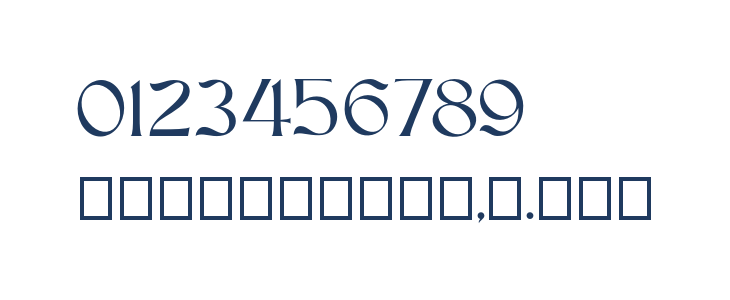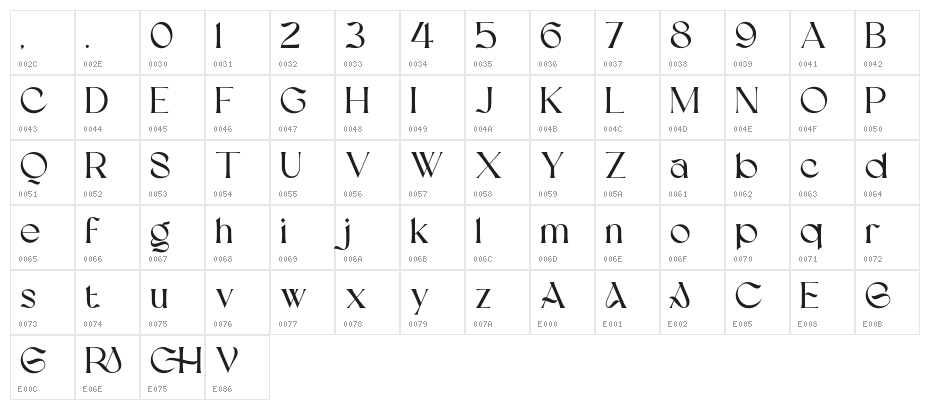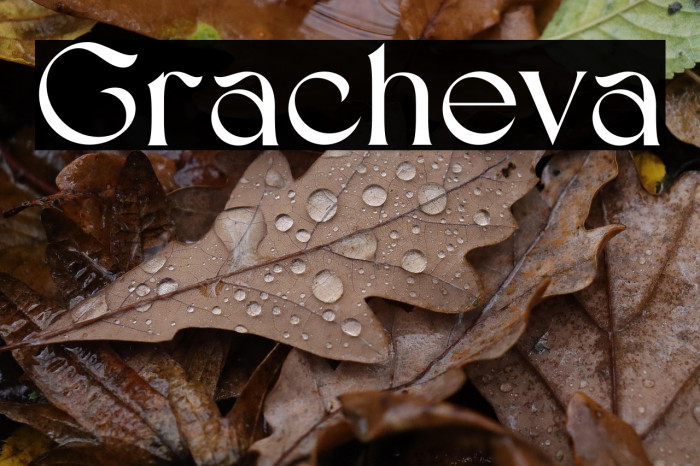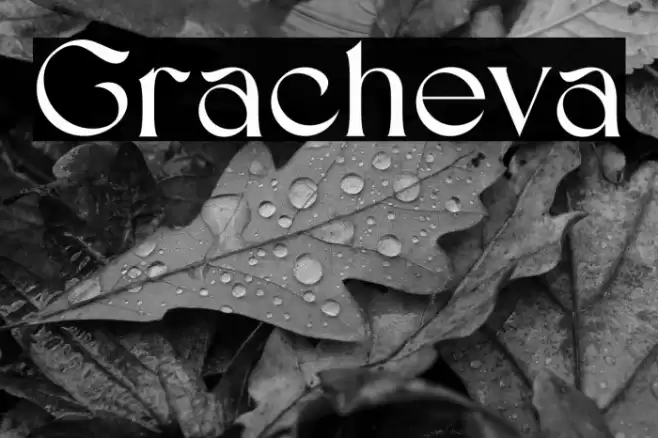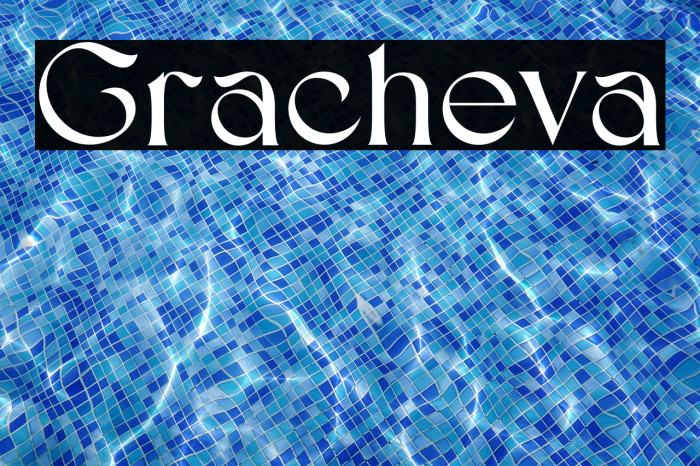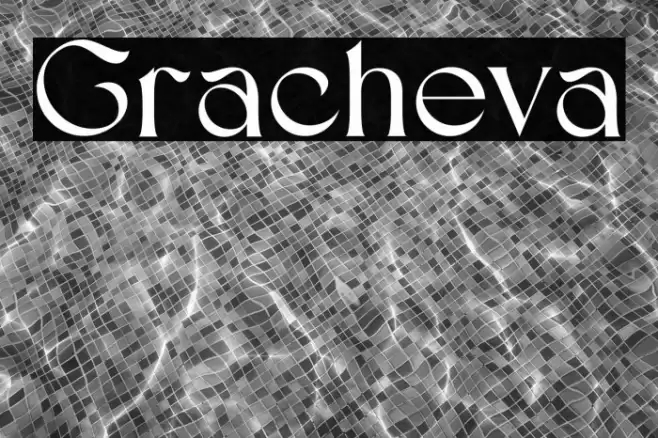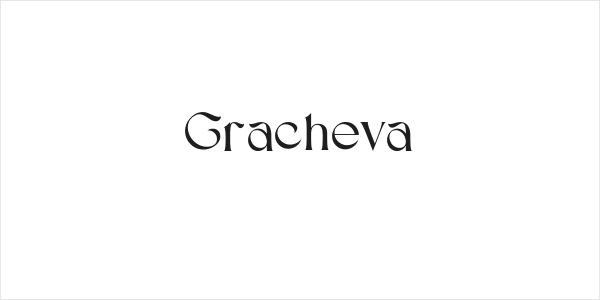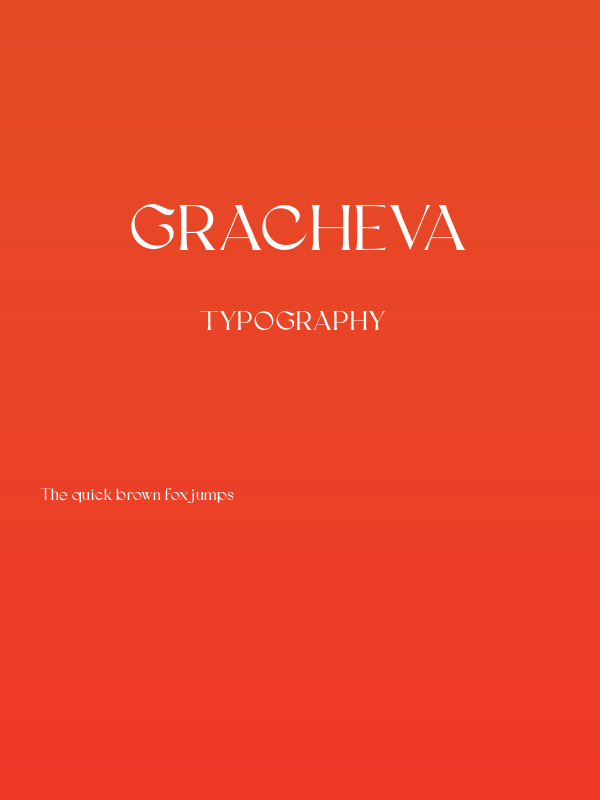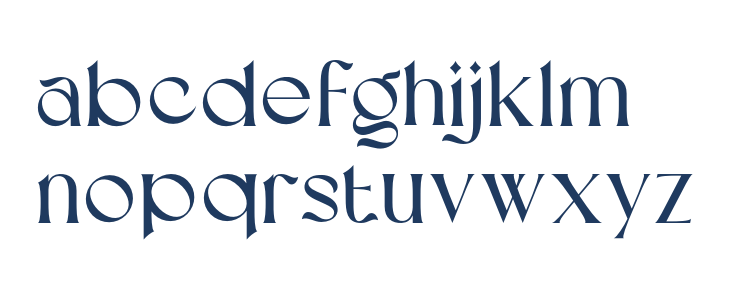
Gracheva Font
Gracheva Description
This font features a unique blend of modern and classic elements, characterized by its elegant and slightly elongated letterforms. The uppercase letters exhibit a sophisticated flair with subtle serifs and varying stroke widths, creating a sense of movement and dynamism. The lowercase letters maintain a consistent style, with smooth curves and a harmonious flow. The numerals are distinct and easily readable, complementing the overall aesthetic. Special characters are thoughtfully designed to match the font's refined appearance. This font's versatility makes it suitable for a wide range of applications, from formal invitations to branding projects.
| Use Case | Headlines, Logos, Editorial design |
| Proposed Projects | Ideal for branding, editorial design, formal invitations, and luxury product packaging. |